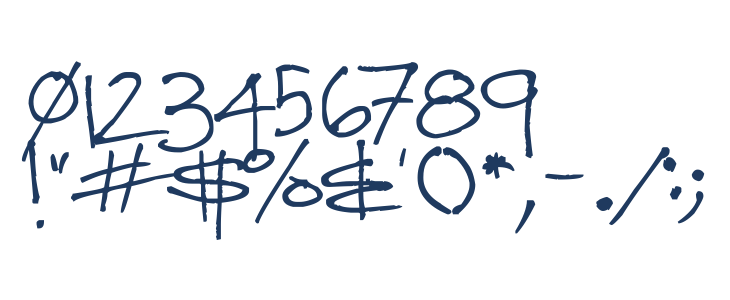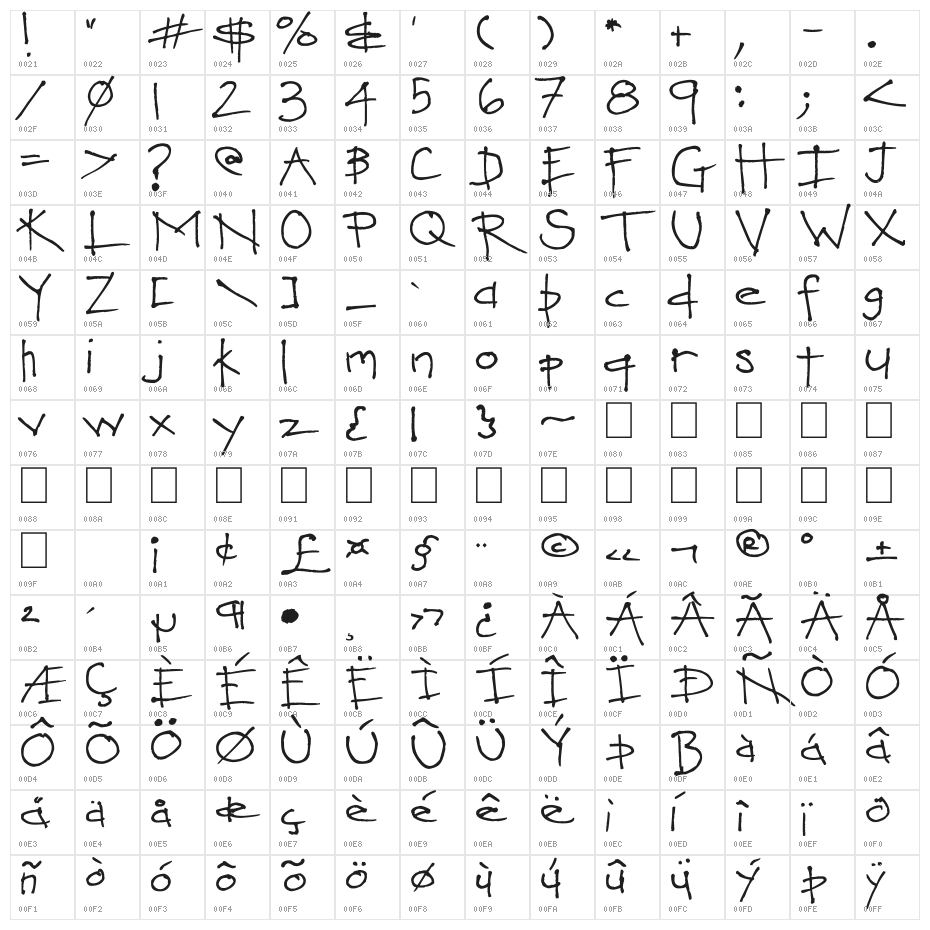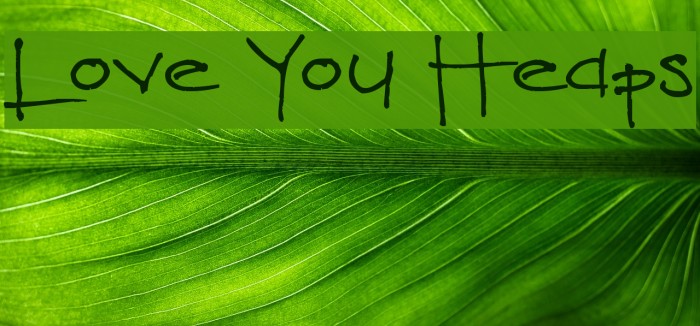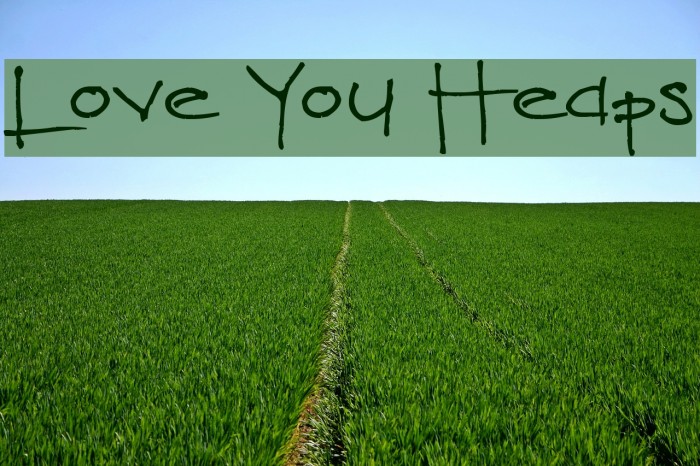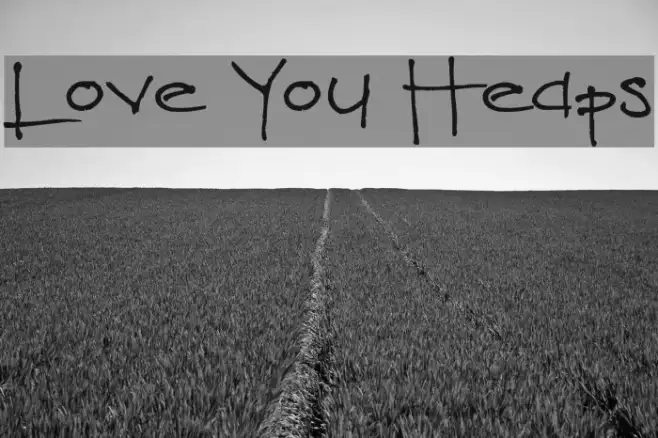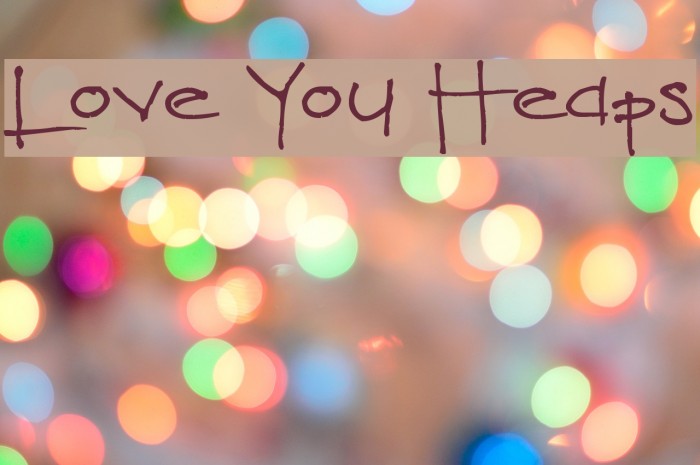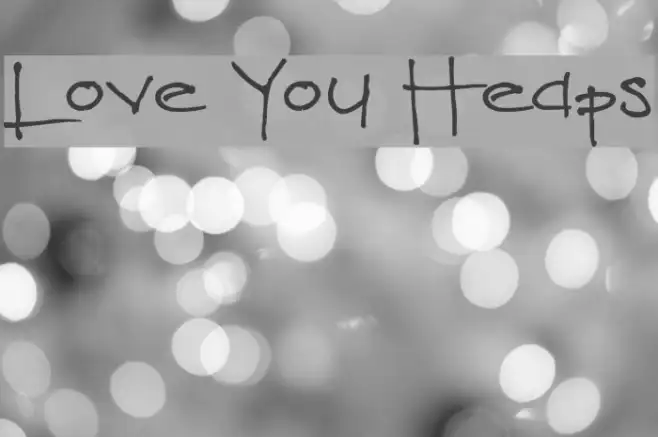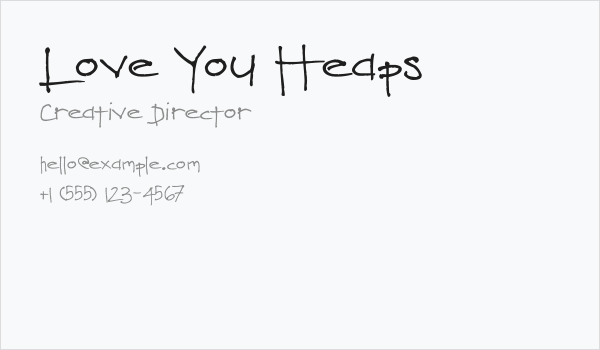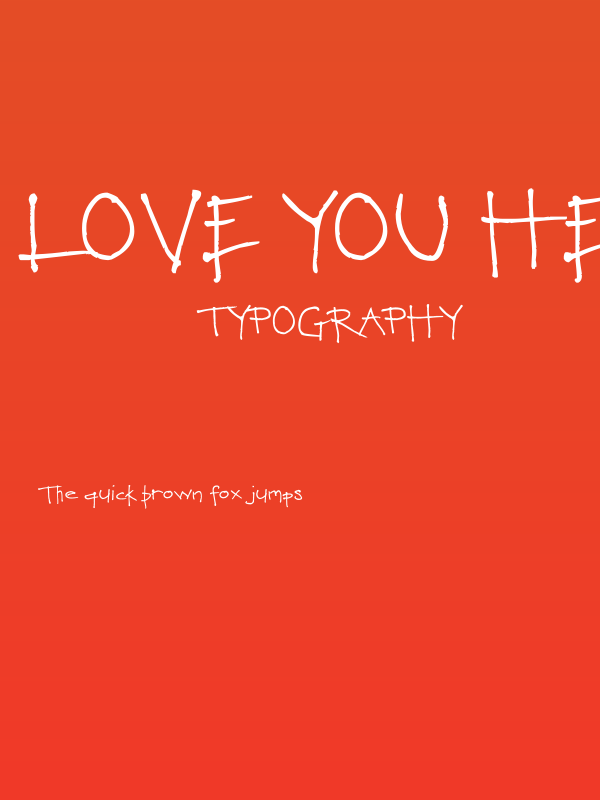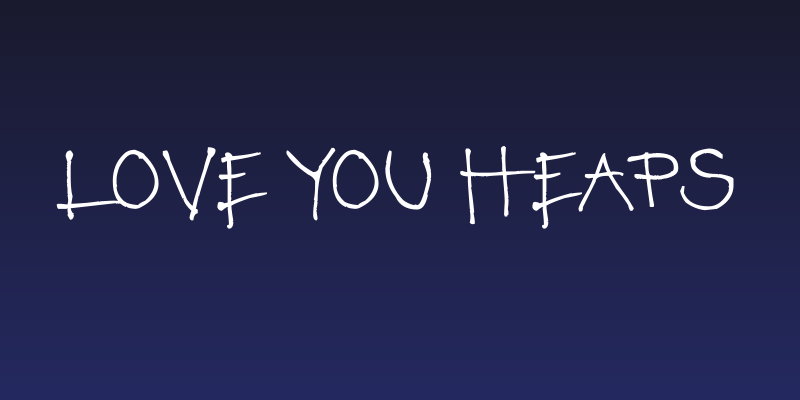
Love You Heaps Font
Love You Heaps Description
This font exhibits a playful and informal handwritten style, characterized by its irregular and dynamic strokes. The letters have a casual, almost whimsical appearance, with varying line thickness that adds to its charm. The uppercase and lowercase letters maintain a consistent style, with a slightly exaggerated height that gives them a distinctive look. The numerals and special characters follow the same playful aesthetic, making the font suitable for creative and informal projects. Its unique style captures a sense of spontaneity and personal touch, reminiscent of doodles or casual notes.